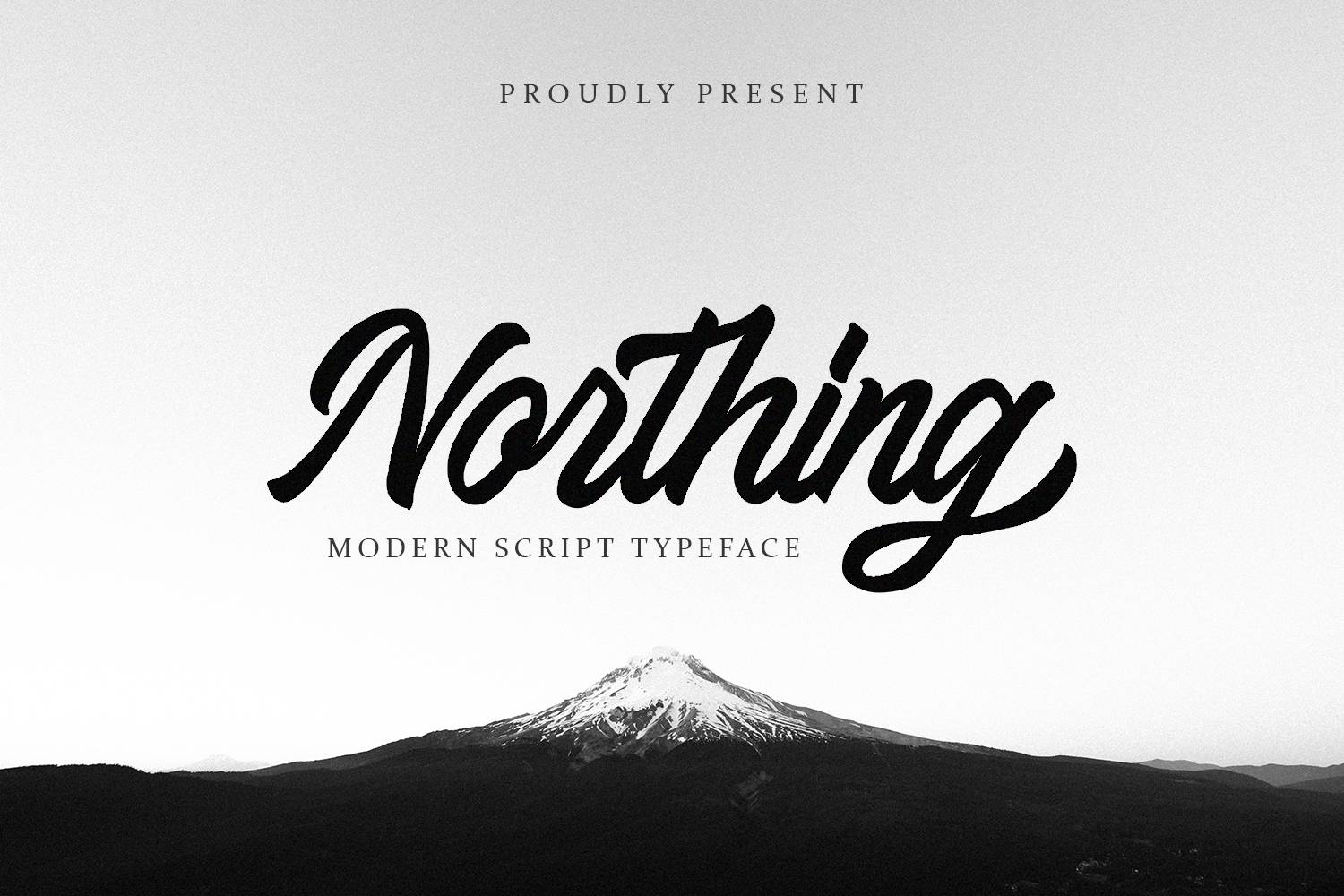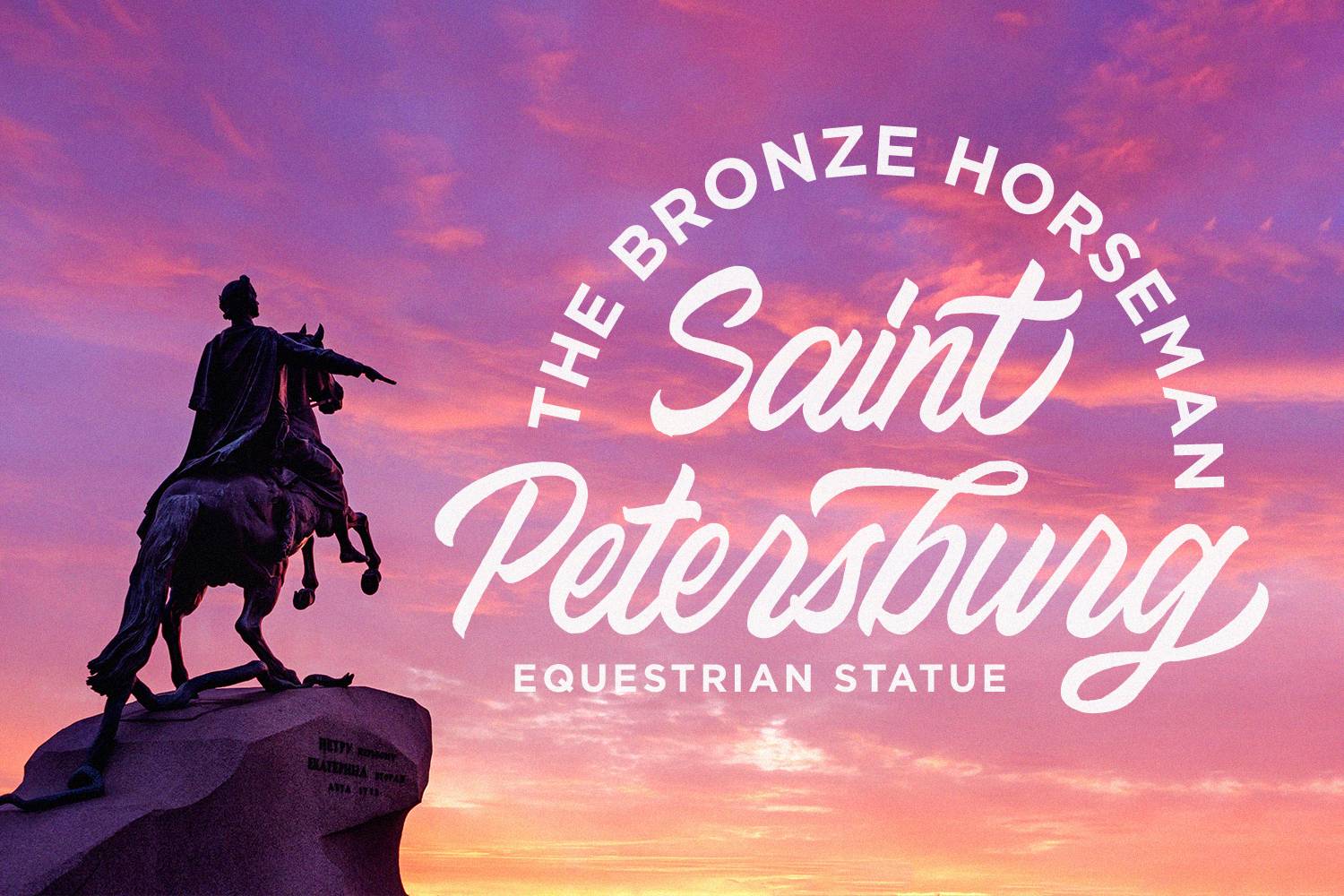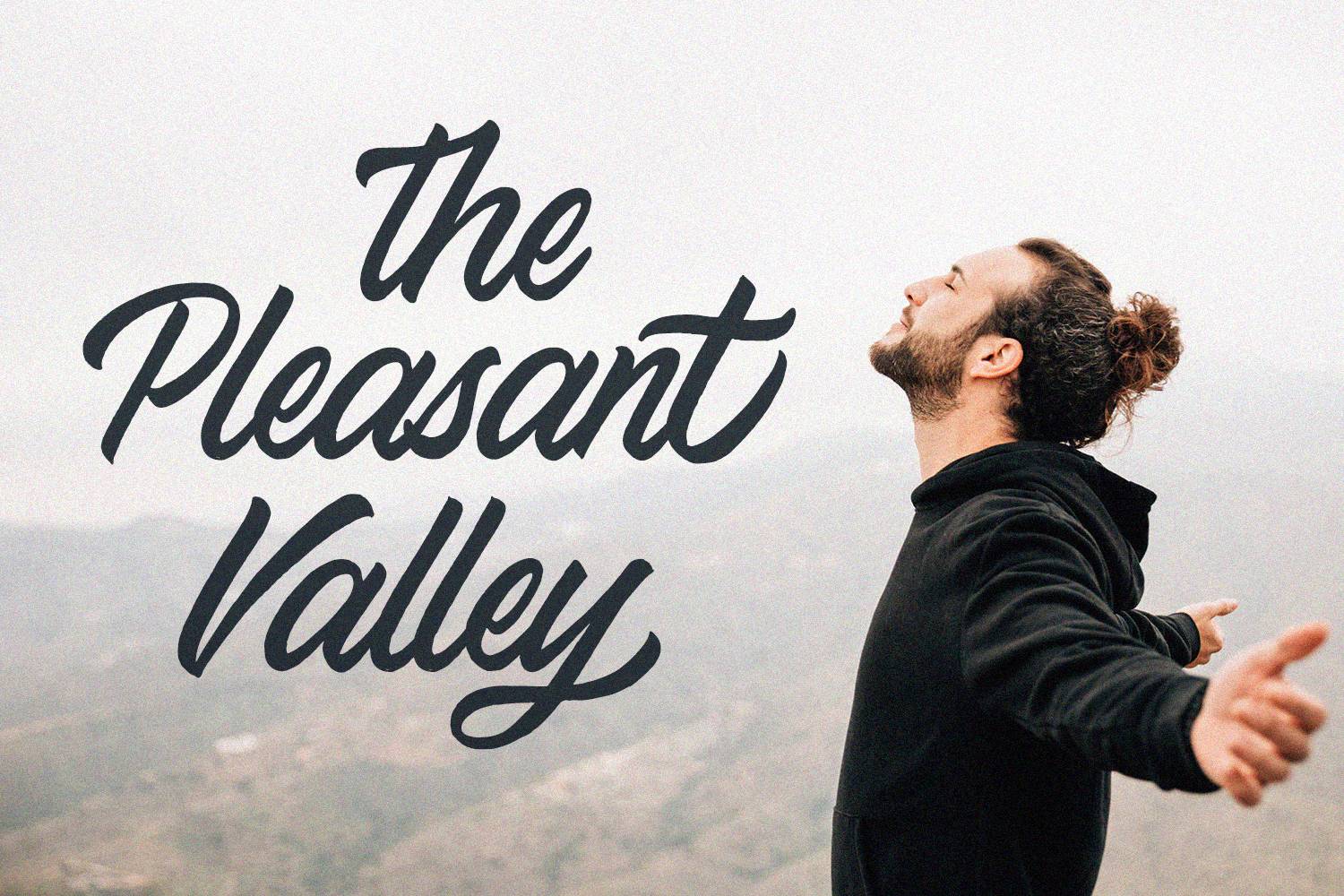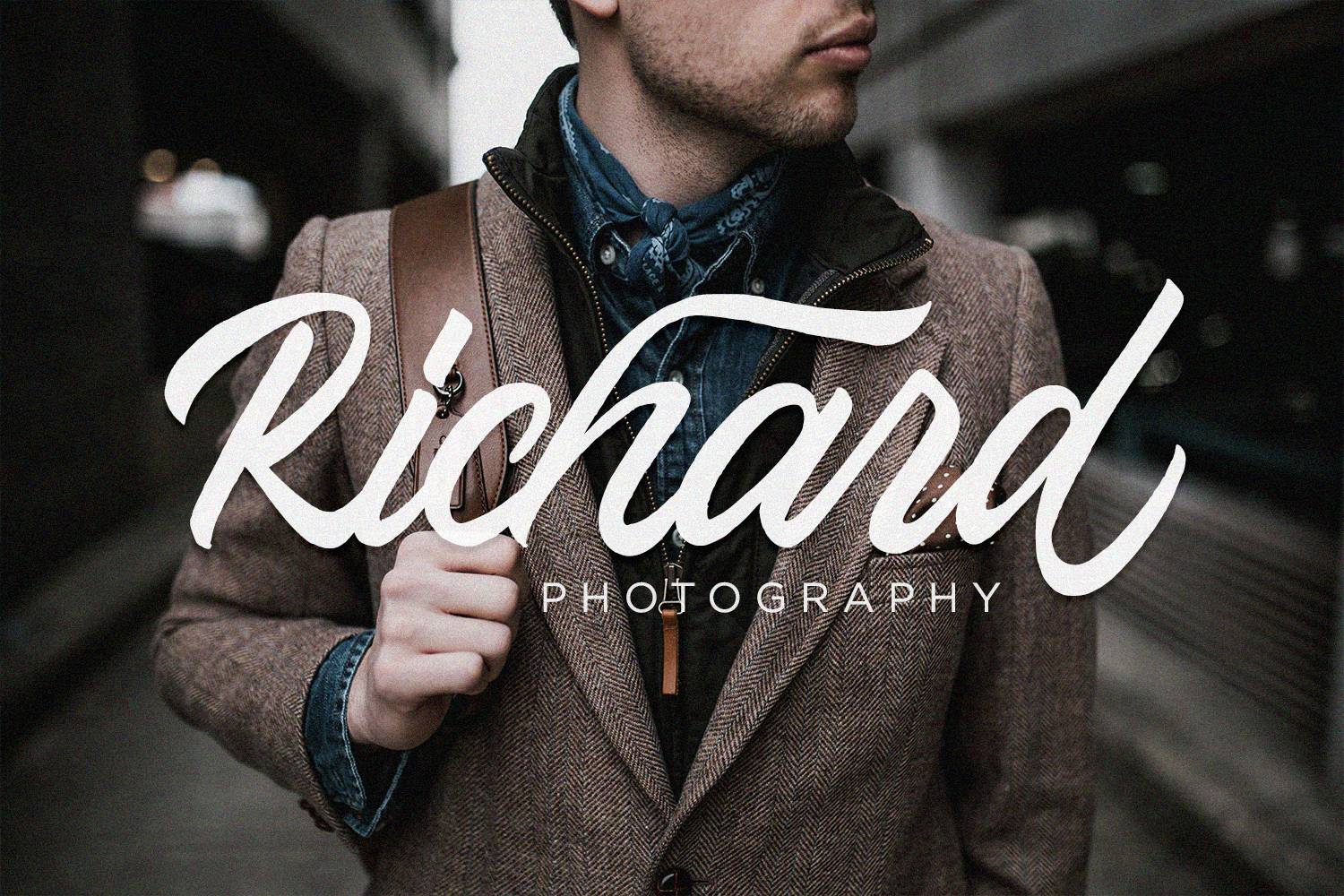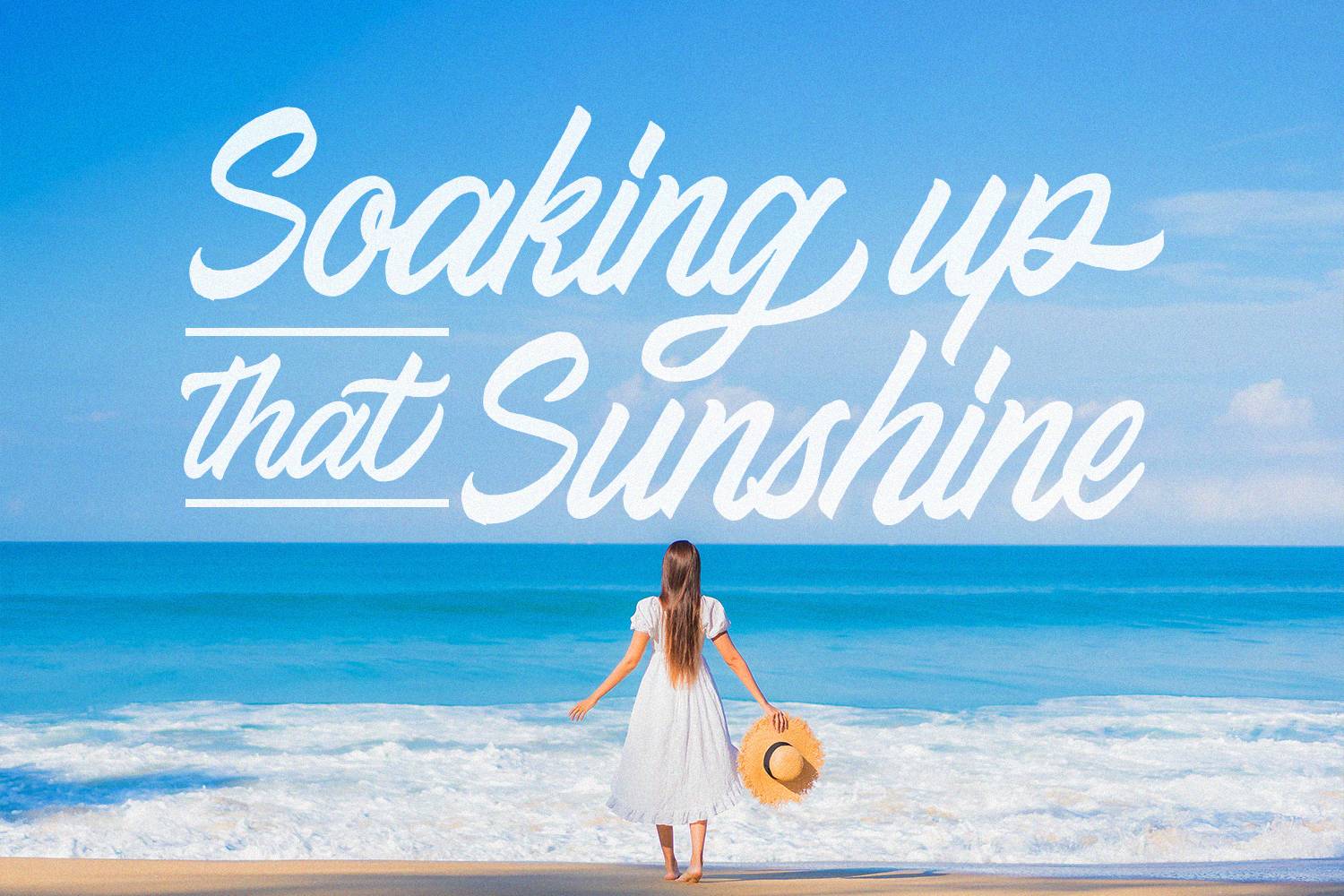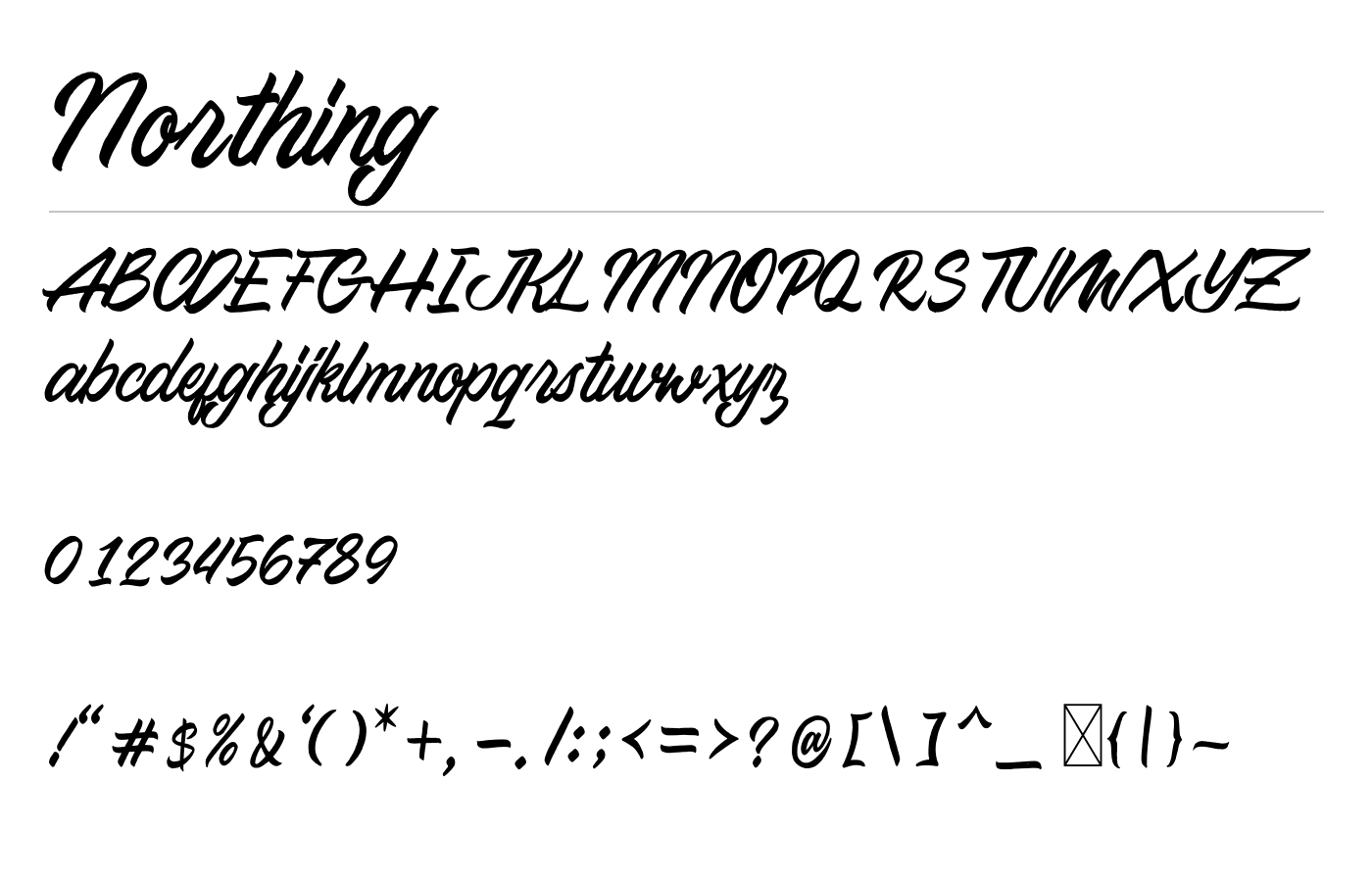
Northing is an elegant script font with a smooth, flowing style that mimics natural handwriting with moderate contrast and a slightly condensed width. Its dynamic strokes and cursive connections give it a lively and personable feel, making it ideal for branding, invitations, or creative projects that want to convey friendliness and sophistication. This font works beautifully in headlines or logos where a stylish, handcrafted touch is desired.